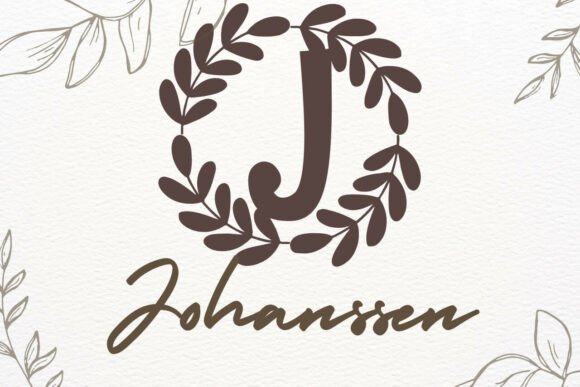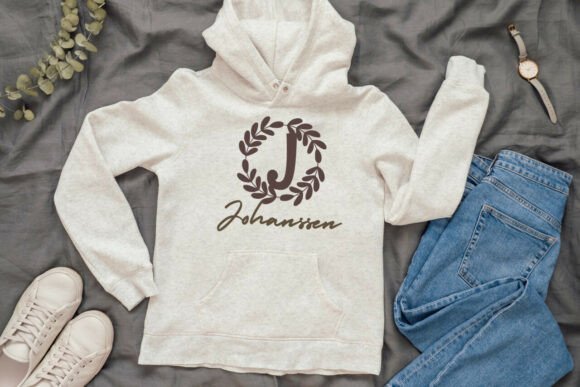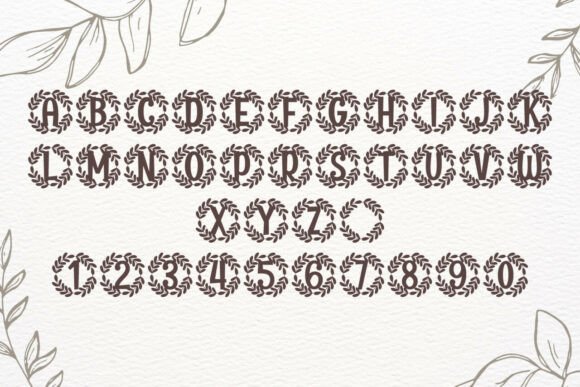
Introduction to Ornatique Monogram Font
Have you ever been brainstorming ideas for a creative project, only to be stuck on finding the perfect font to set the tone? That’s where the Ornatique Monogram Font comes in – a high-quality design resource that turns simple initials into refined emblems with quiet flair. Whether you’re designing a wedding suite, boutique logo, or keepsake gift, this elegant font is sure to elevate your project to the next level.
With its smooth lines and open curves, the Ornatique Monogram Font is perfect for creating polished compositions that stand out. Its versatility makes it an ideal choice for various design applications, from premium packaging to venue signage. Plus, its seamless scaling ensures that your design looks great across different platforms.
Key Features of Ornatique Monogram Font
- Unique, ornate design perfect for creative projects and personal branding
- High-quality, scalable font suitable for use in various design applications
- Resolution-independent, ensuring crisp and clear text at any size
- Perfect for designers and artists looking for a distinctive, elegant font to elevate their work
Honest Review: Ornatique Monogram Font
I recently had the chance to work with the Ornatique Monogram Font and I must say, it was a pleasant experience. This font is perfect for any creative project that requires a touch of elegance and sophistication. The high quality design and crisp lines make it a great addition to any design resource.
- ✨ High-quality design with crisp lines and delicate details.
While the Ornatique Monogram Font is a great addition to any design, there are a few limitations to keep in mind.
- ⚠️ The font is only available in a limited number of styles, which may not be ideal for projects that require a wide range of font options.
- ⚠️ Some users may find the font’s delicate details to be too ornate for certain design projects.
Overall, I’m impressed with the Ornatique Monogram Font and I would highly recommend it to anyone looking for a high-quality, elegant font for their creative project.
Tips for Getting the Most Out of Ornatique Monogram Font
Experiment with layering and combining the Ornatique Monogram Font with other design elements to create unique and eye-catching designs. Use the font in conjunction with transparent backgrounds to add depth and visual interest to your creative project.
Common Use Cases for Ornatique Monogram Font
The Ornatique Monogram Font is ideal for a variety of creative projects, including wedding invitations, branding materials, and social media graphics. Take advantage of the high-quality design resource to create stunning designs that elevate your brand or personal project.